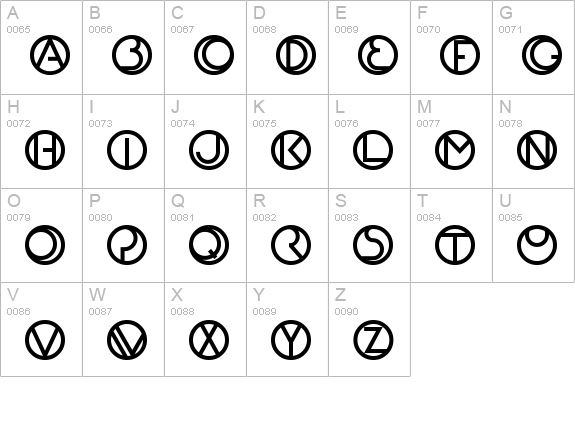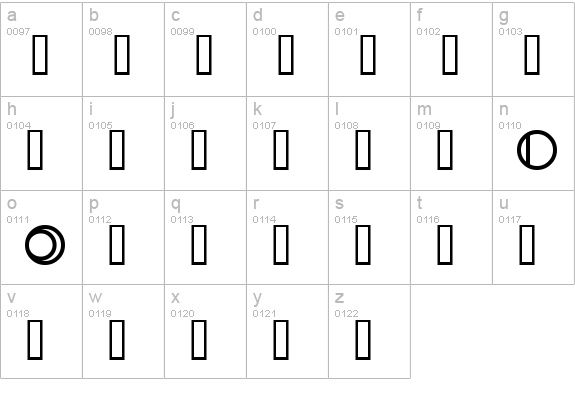
Circlea Plain Font Details
Circlea Plain font is a sleek and modern typeface that exudes simplicity and elegance. With its perfectly rounded shapes and clean lines, this font is perfect for a wide range of design projects, from logos to branding materials to web design. Its versatile style makes it a great choice for both headings and body text, ensuring readability and visual appeal. What makes Circlea Plain font even better is that it is available for free download at FontsMarket.com. Yes, you read that right - you can get your hands on this stylish font without having to spend a penny. So why wait? Head over to FontsMarket.com and elevate your design projects with the timeless charm of Circlea Plain font.